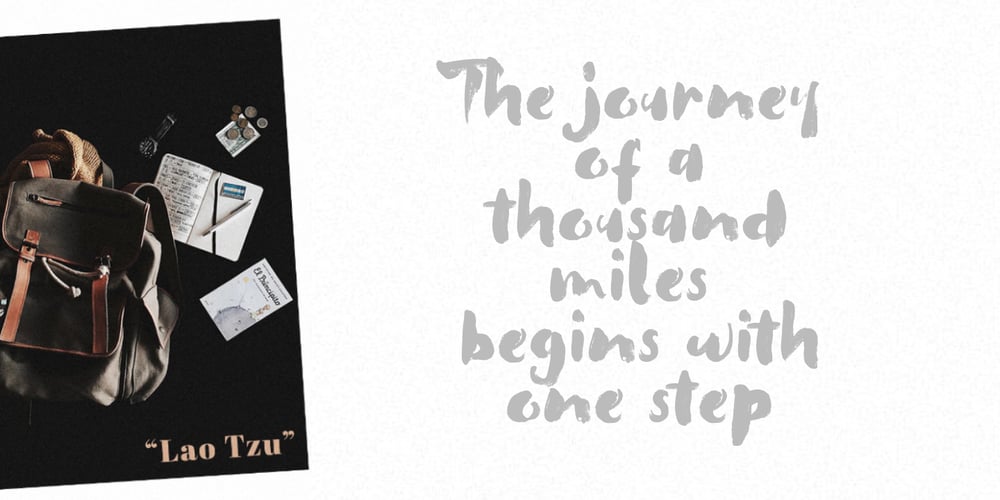
Super Ride Font Family was designed by Alam Syahril and published by Realtype. Super Ride contains 1 styles and family package options. Super Ride is a manual written font to get the best texture for each letter. Super Ride is perfectly designed, each letter character will make your design strong and dazzling. Each letter and symbol is painted using the best brushes and ink. Super Ride contains uppercase and lowercase characters, numbers and various punctuation marks ready for you to use with unique and charming characters.